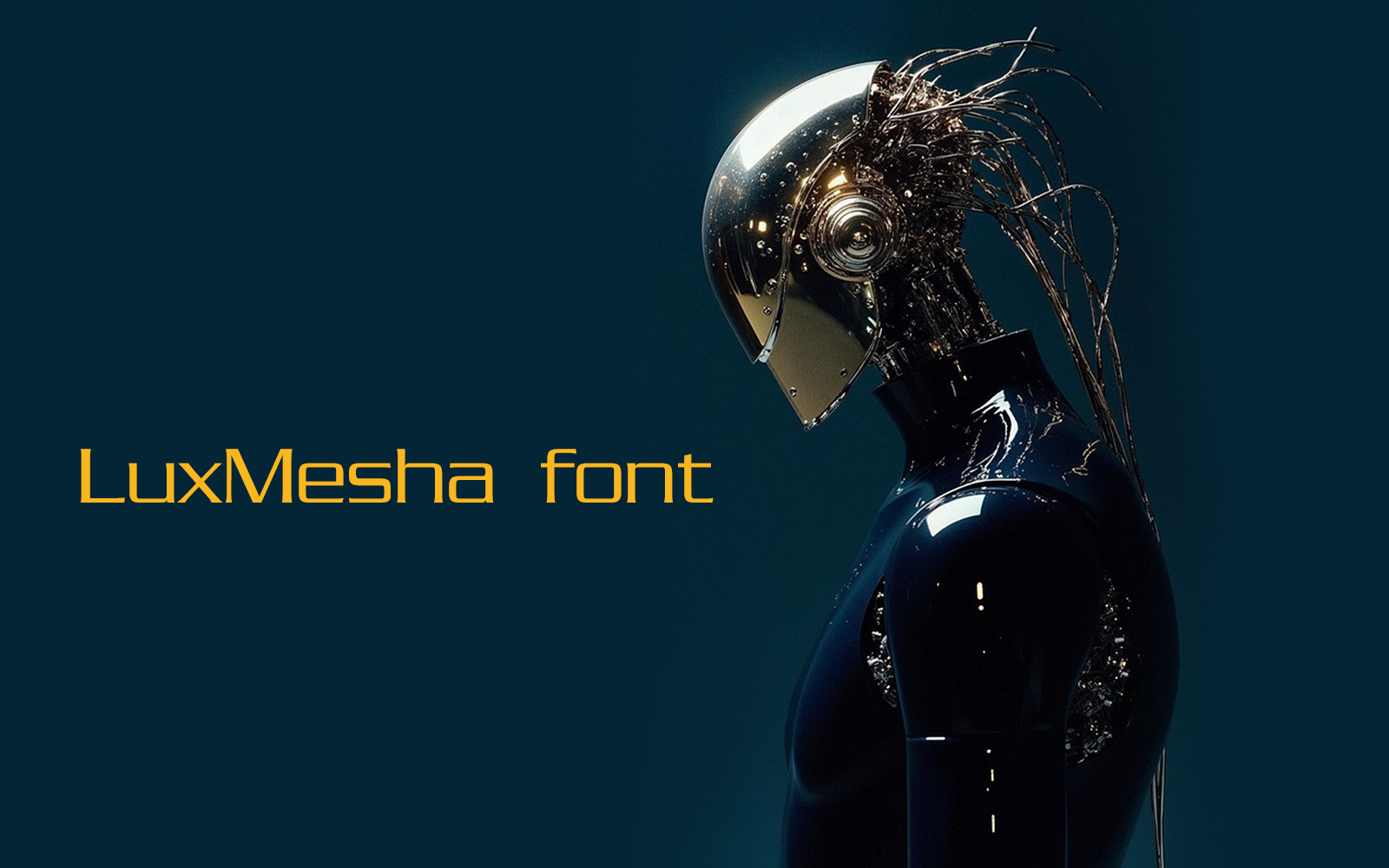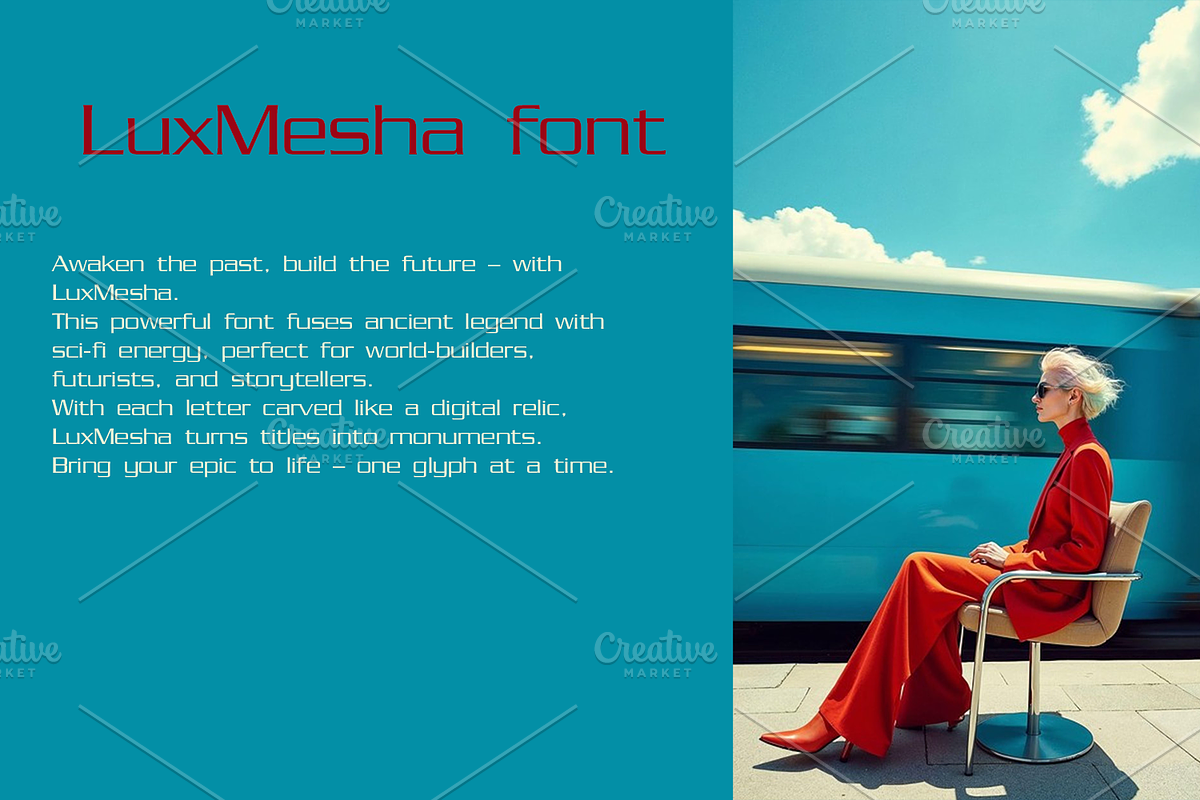
LuxMesha font-Regular-079-25
Awaken the past, build the future – with LuxMesha.
This powerful font fuses ancient legend with sci-fi energy, perfect for world-builders, futurists, and storytellers.
With each letter carved like a digital relic, LuxMesha turns titles into monuments.
Bring your epic to life – one glyph at a time.